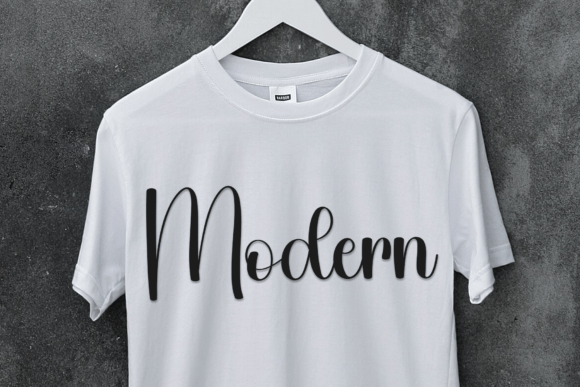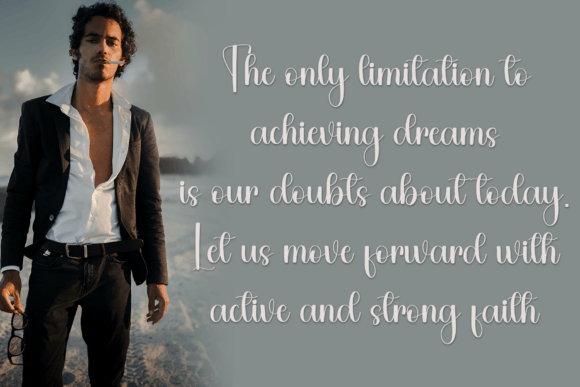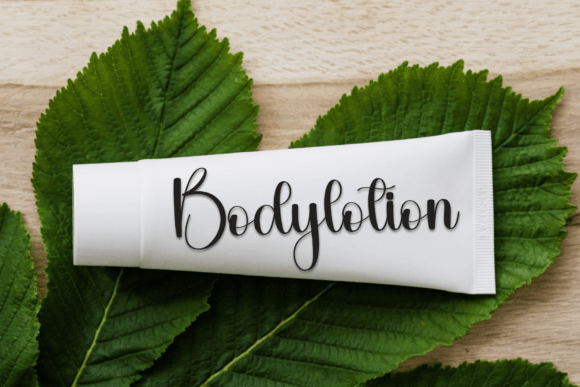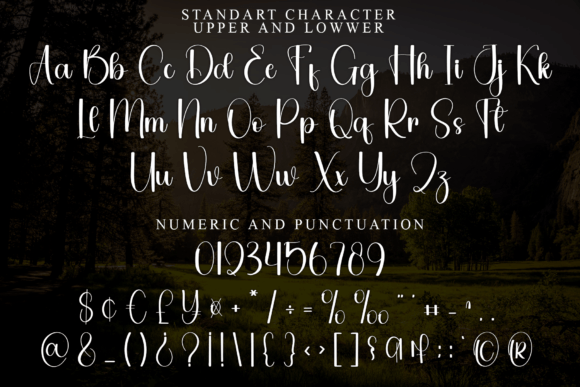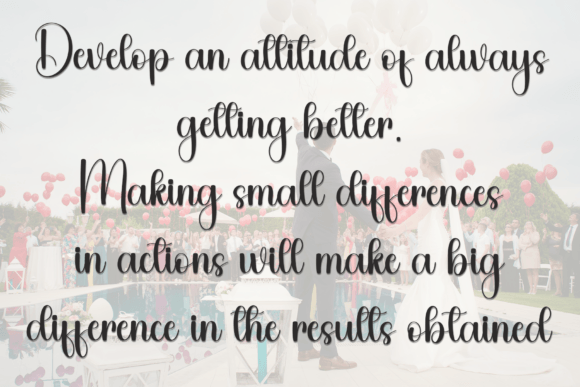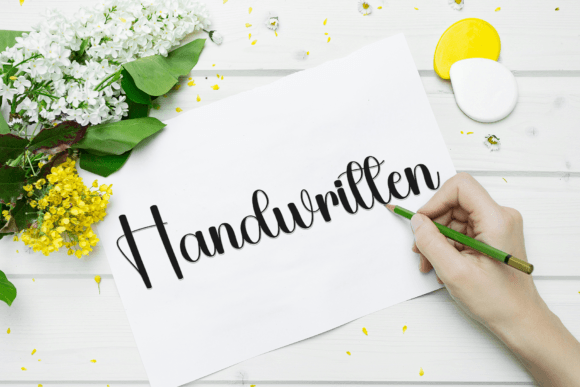
Unwrap the Magic of the Christmas Drawing Font
As the snowflakes start to fall and the festive lights twinkle, many designers find themselves in a creative haze, searching for the perfect font to capture the essence of the holiday season. For some, it’s the sound of jingling bells, while for others, it’s the warmth of a crackling fireplace. For us, it’s the joy of discovering a font that brings our designs to life – and that’s exactly what the Christmas Drawing Font does.
This beautiful handwritten font is more than just a pretty face; it’s a valuable tool for designers looking to add a touch of whimsy and personality to their logos, branding, and quotes. With its unique and beautiful touch, the Christmas Drawing Font is sure to make your designs stand out from the crowd. And with its PUA encoding, accessing all the amazing glyphs and ligatures is a breeze!
Key Features of Christmas Drawing Font
- Unique Characteristics: Christmas Drawing Font features a unique, hand-drawn design with intricate details and ornaments, perfect for adding a festive touch to your designs.
Designer Review: Christmas Drawing Font
As a designer, I’ve had the chance to play around with the Christmas Drawing Font, and here’s my honest take on it. ✨
- Unique and playful style: This font is perfect for adding a touch of whimsy to your holiday designs. The hand-drawn feel is instantly recognizable and will add a personal touch to any project.
- Wide range of characters: The font includes a vast array of characters, including numbers, letters, and special symbols, making it easy to create complex and detailed designs.
- Easy to use: The font is relatively easy to use, even for designers who are new to hand-drawn fonts.
- Some characters may be inconsistent: While the font is generally well-designed, some characters may appear slightly inconsistent, which can be jarring for designers who value precision.
- Limited customization options: The font doesn’t offer a lot of customization options, which may limit its versatility for more complex designs.
The Christmas Drawing Font is a solid choice for designers looking to add a playful touch to their holiday designs. While it may not be perfect, its unique style and wide range of characters make it a great addition to any designer’s toolkit.
The Christmas Drawing Font is perfect for creating holiday-themed invitations, greeting cards, and social media graphics. It’s also great for adding a festive touch to presentations, documents, and websites. Whether you’re a designer or a DIY enthusiast, this font is sure to add some holiday cheer to your projects.